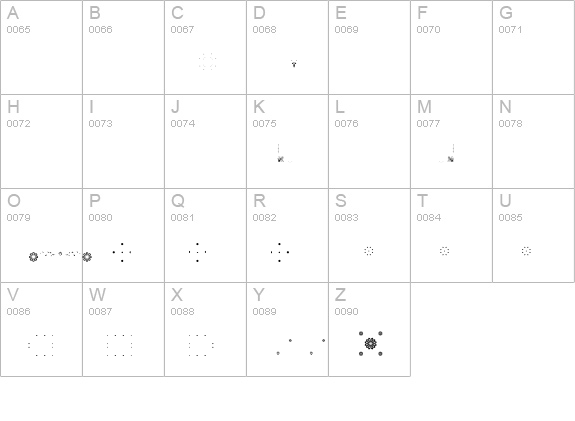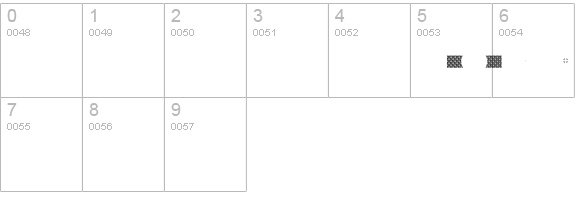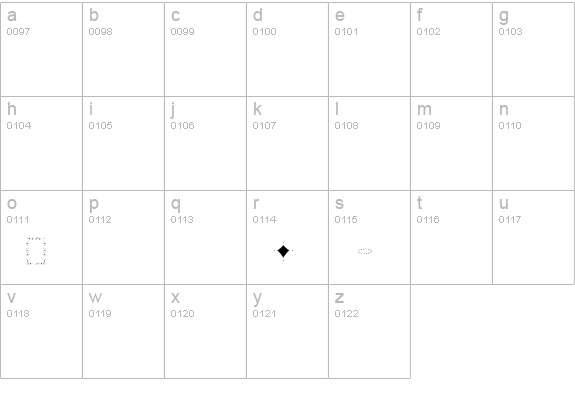
PFOrnmTreasures3-Layer6 font is a stunning and intricate typeface that is perfect for adding a touch of elegance and sophistication to your designs. With its three layers and six layers of ornamental details, this font is sure to make a statement and captivate your audience. What's even better is that PFOrnmTreasures3-Layer6 font is available for free download at FontsMarket.com. This means you can elevate your projects with this beautiful font without breaking the bank. Don't miss out on the opportunity to enhance your designs with this exquisite typeface. Download PFOrnmTreasures3-Layer6 font today and take your creations to the next level.